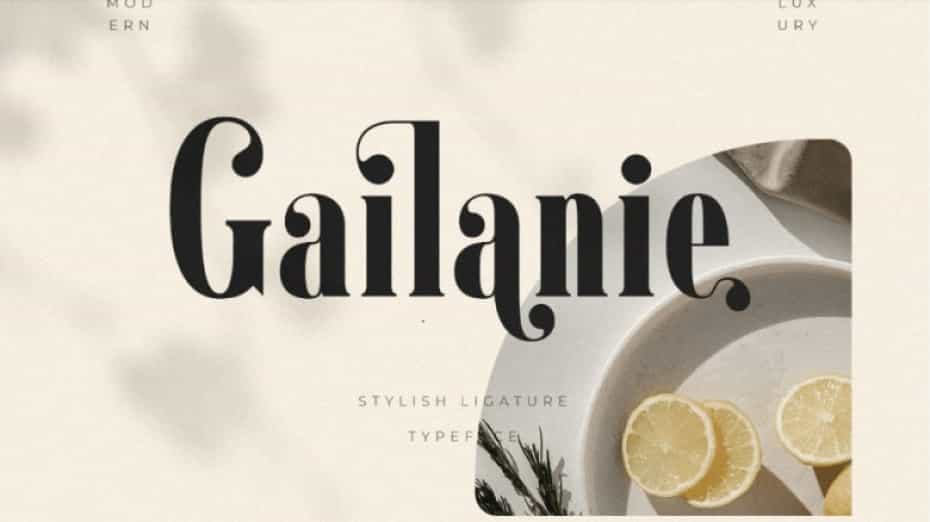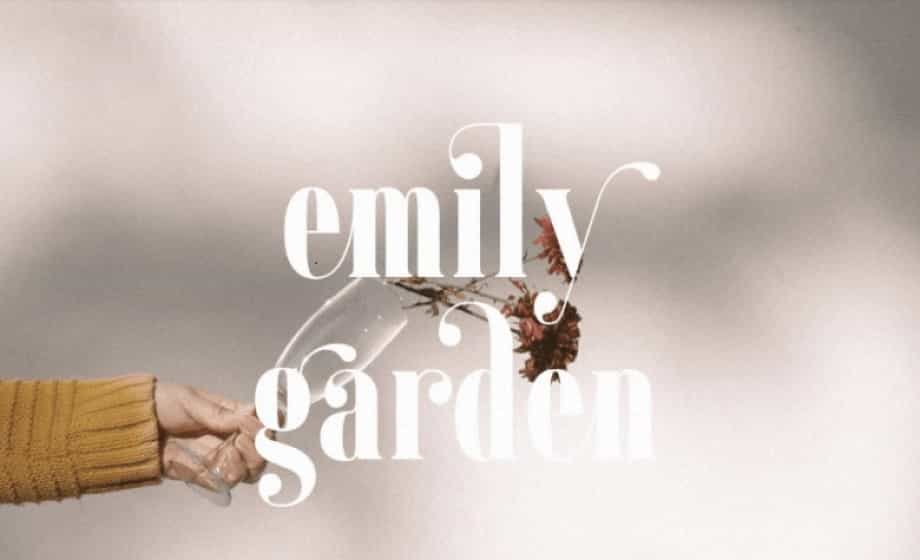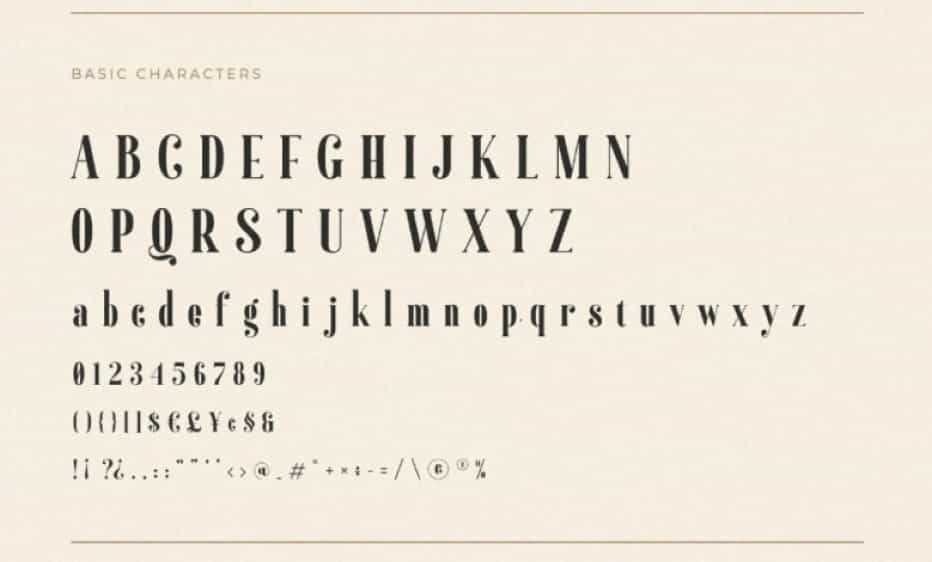
Gailanie Serif Font is an elegant modern ligature typeface perfect for branding, logos and invitations as well as head titles, posters and text packaging for products and more! Perfectly suitable for branding purposes as well as creating attractive head titles, posters and text packaging for products!